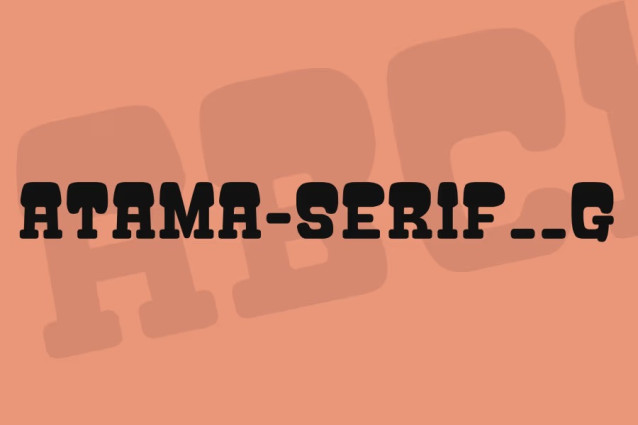
Atama-Serif__G Font
Atama-Serif__G Font is a bold slab serif display font with chunky, squared letterforms that give it a solid and confident tone. Inspired by vintage signage and woodblock prints, the typeface balances retro charm with contemporary readability. Its strong serifs and rectangular curves create a structured silhouette that feels both playful and serious.
Each character features consistent stroke thickness and carefully spaced proportions, maintaining an even rhythm across words and phrases. The pronounced serifs anchor the letterforms while the generous counters ensure clarity at large sizes. This combination of sturdiness and openness makes Atama-Serif stand out without overwhelming the page.
Use Atama-Serif to add weight and personality to headlines, posters, and packaging. It’s ideal for branding projects, logos, album covers and editorial layouts where a distinctive display font can set the tone. Whether you’re designing for a retro-themed campaign or adding a touch of vintage flair to modern work, this font delivers impact and style.